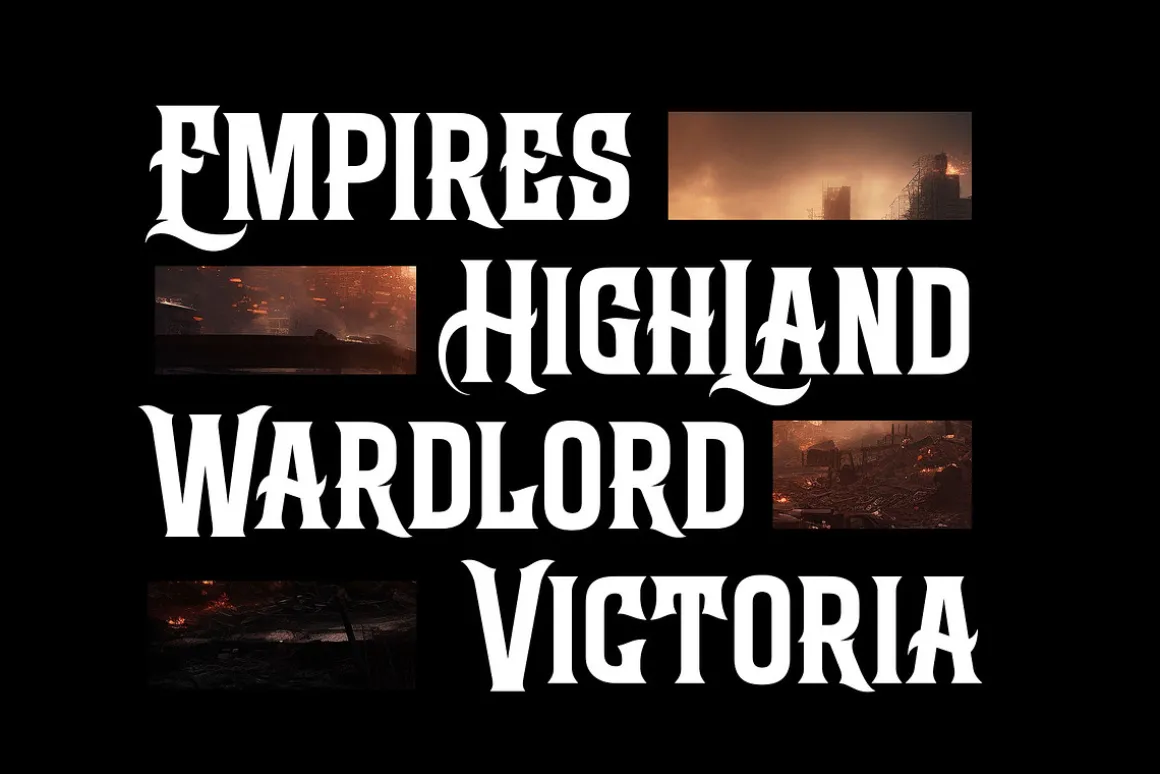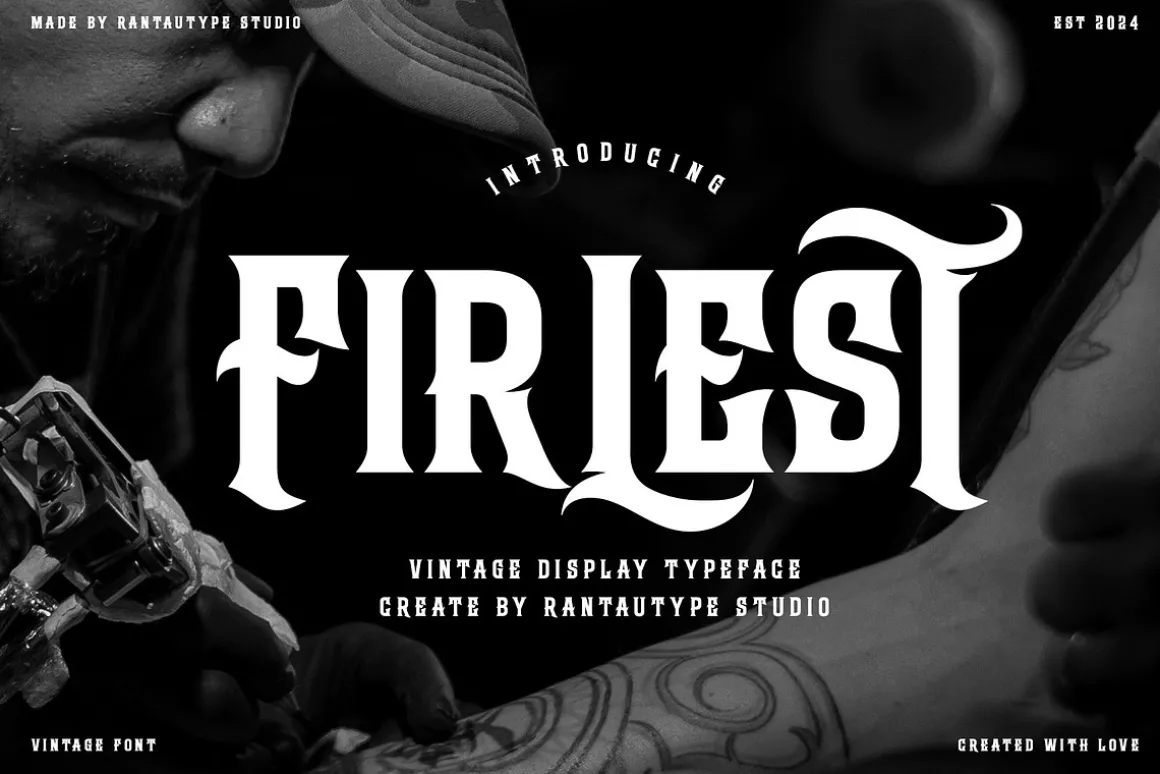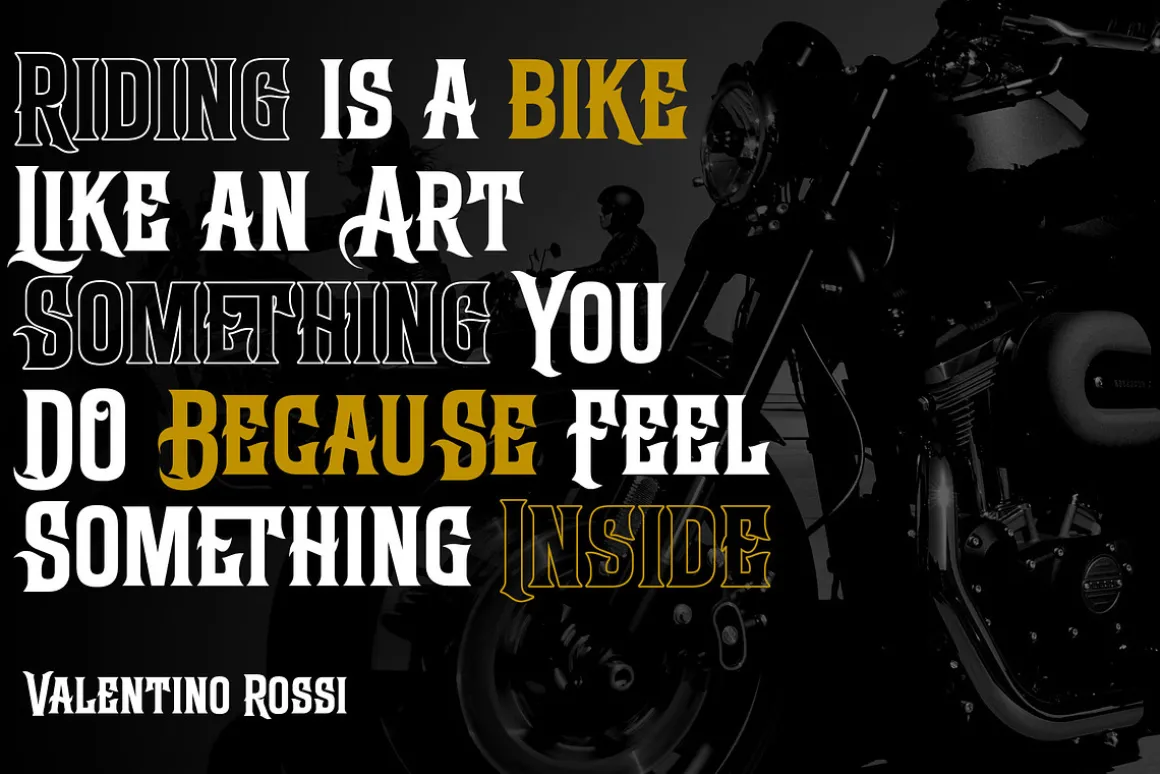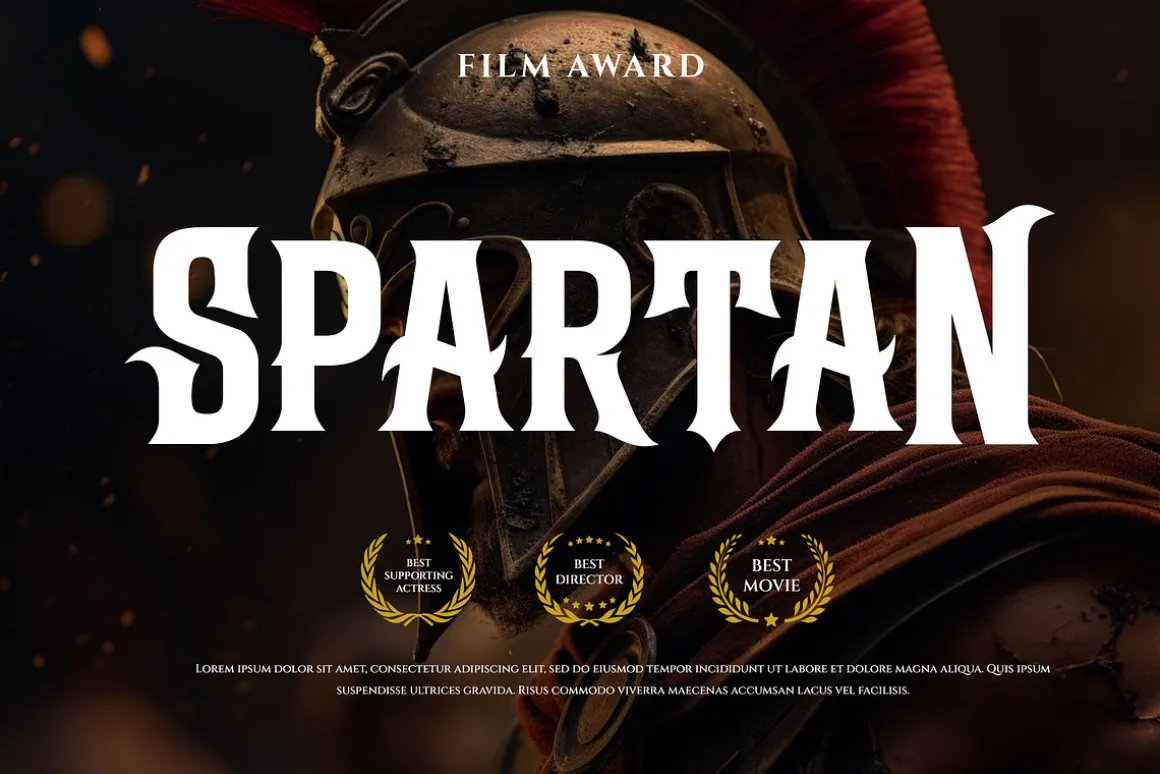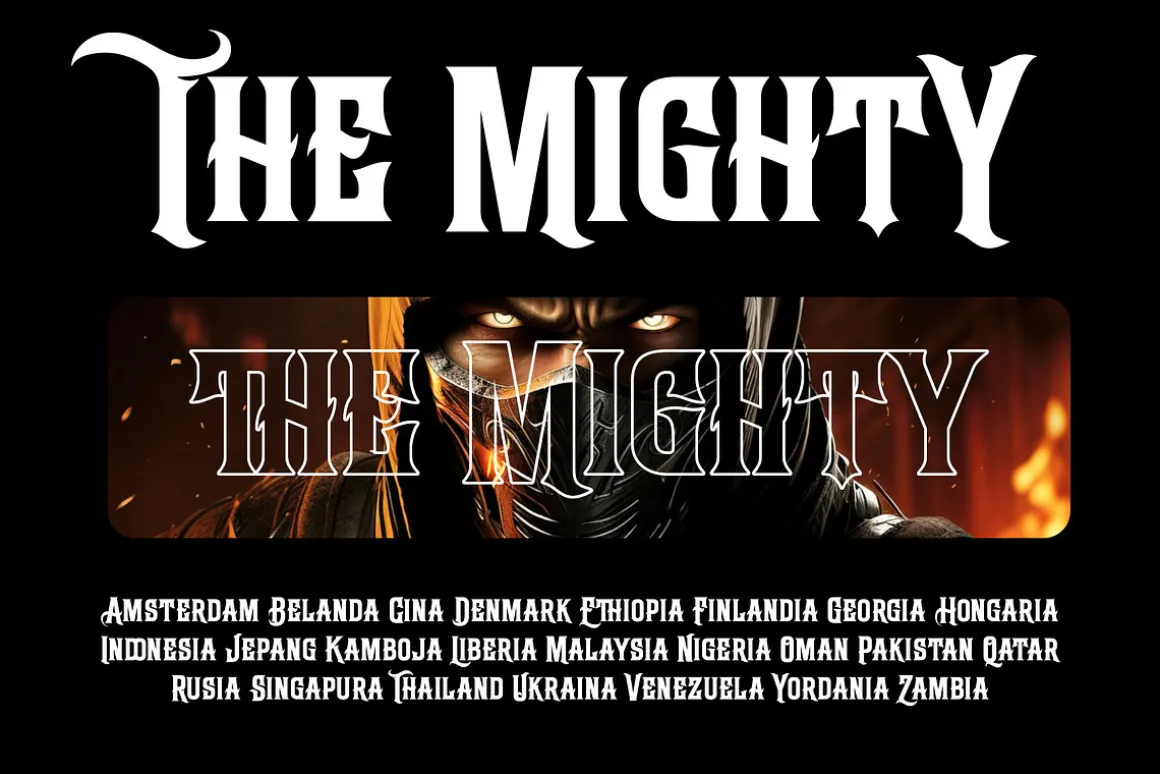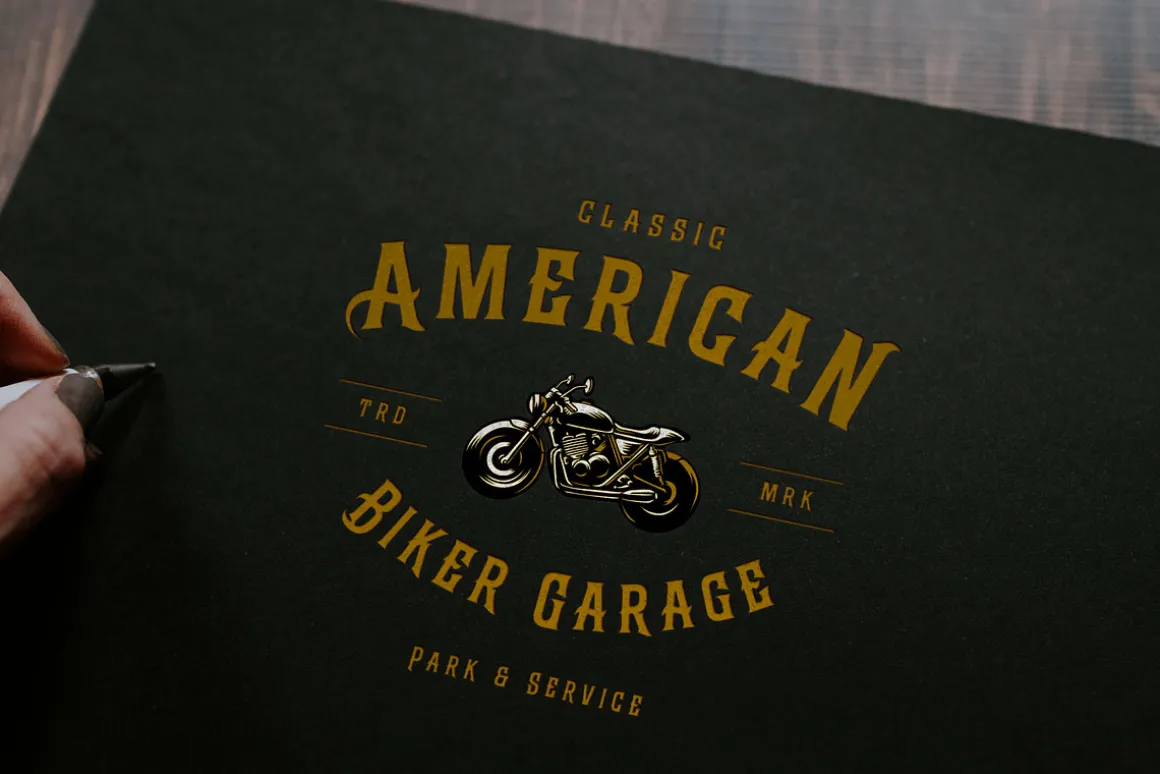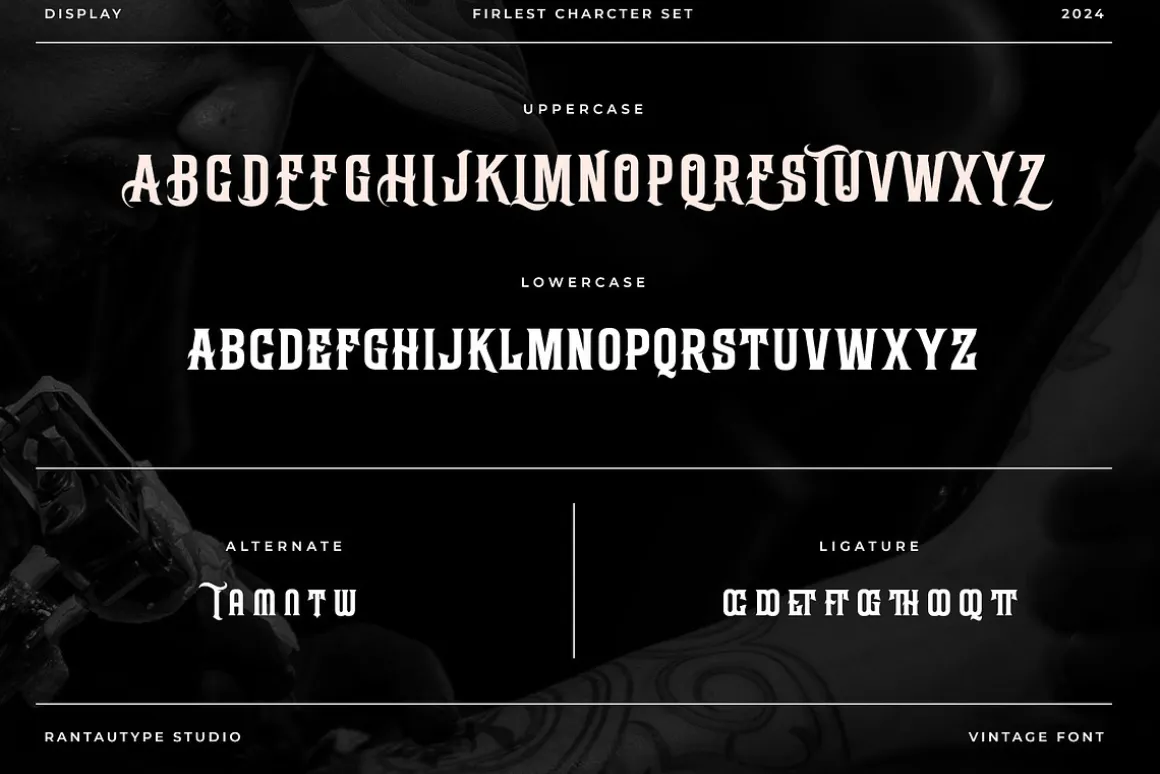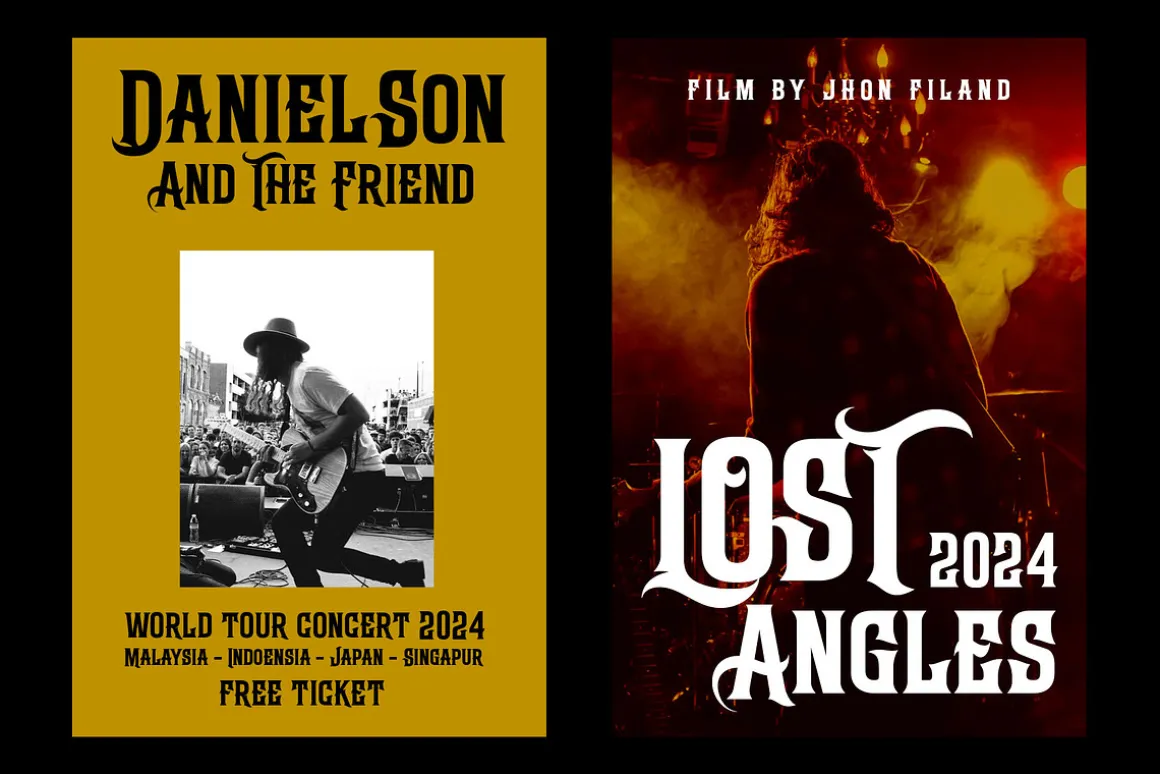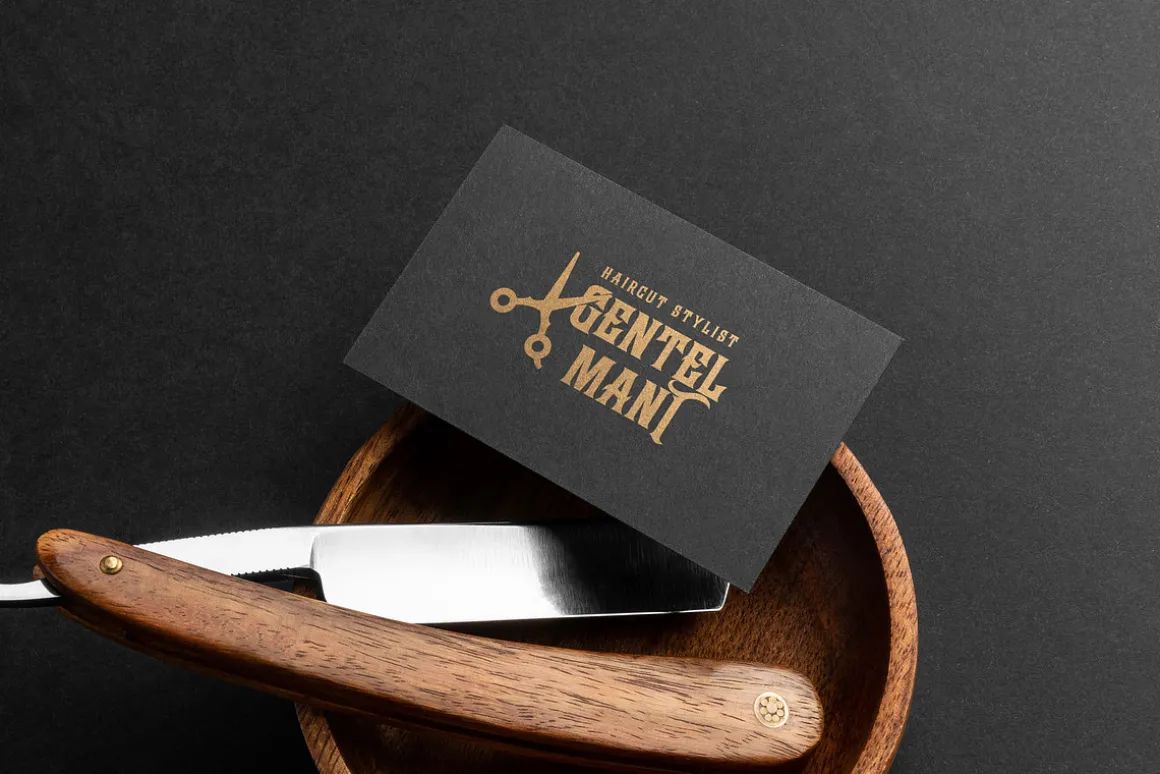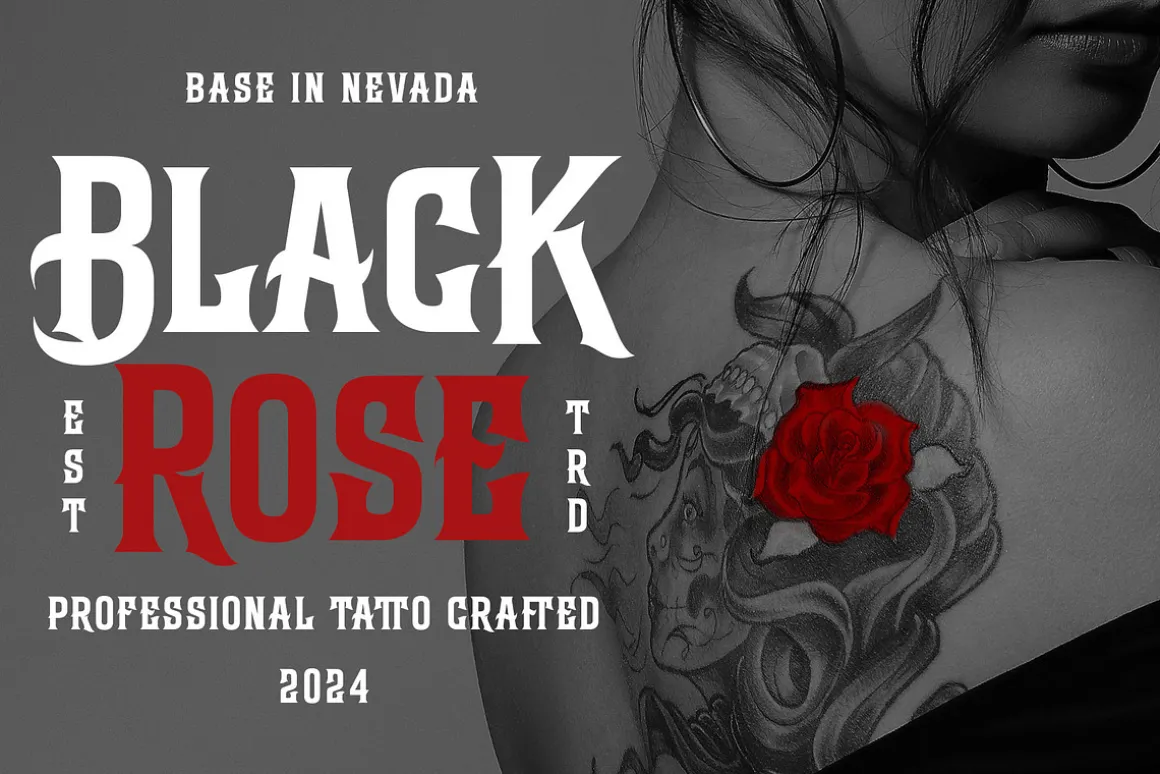
Firlest is old vintage font inspire by culture of tatto and biker visual design. Firlest come with strong curve and artistic character make sense of elegance.
Firlest is a perfectly choice for any creative endeavor, chic, lifestyle design such as logos, advertisements, stationery, branding project, display and magazine, invitation, corporate brand, product design, label, business project and many other project with old vintage touch.
- Alternate and Ligature